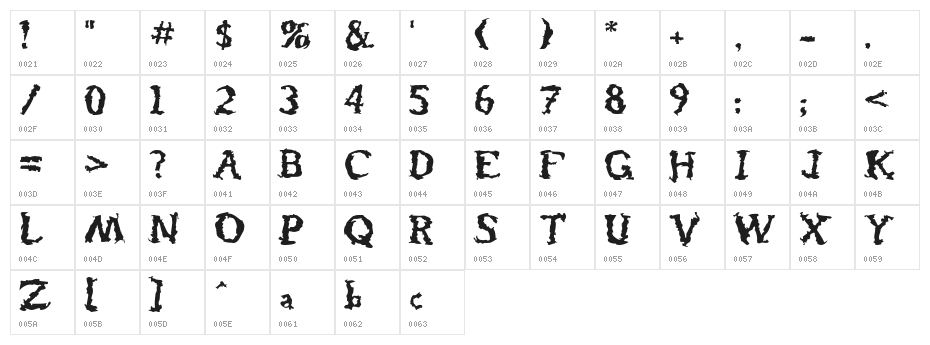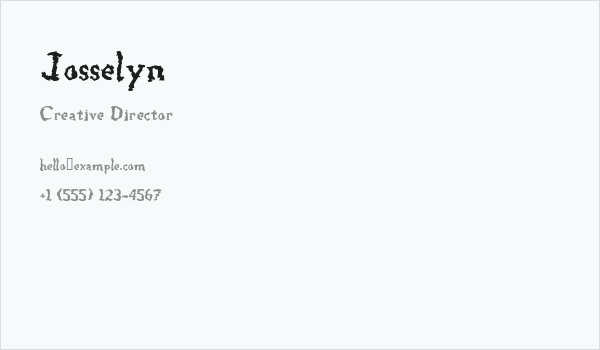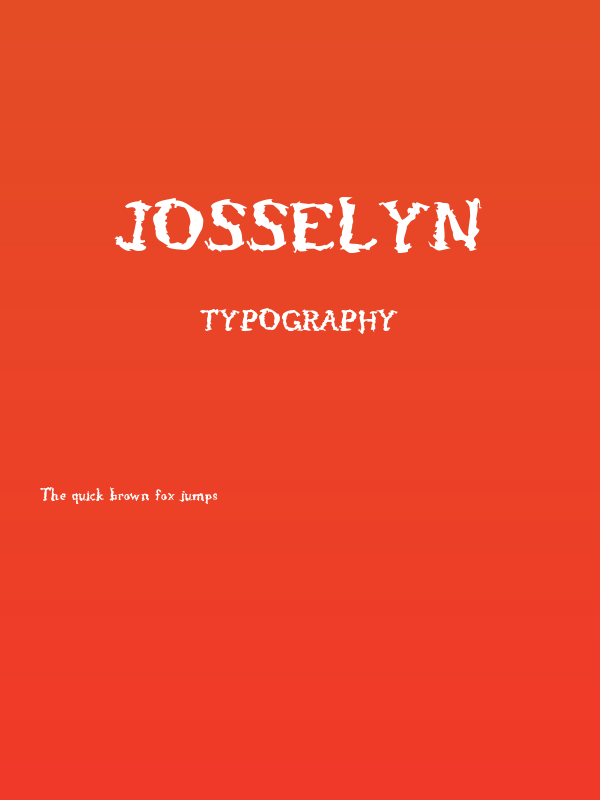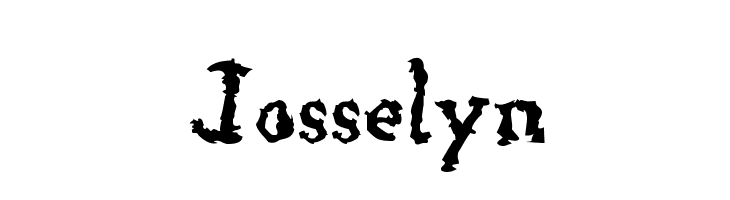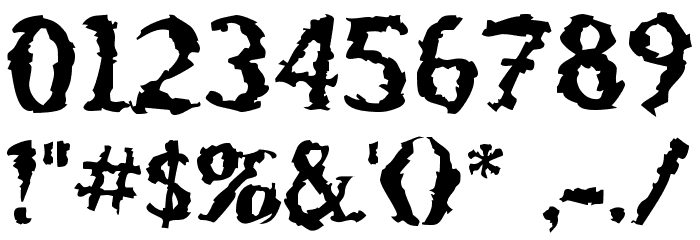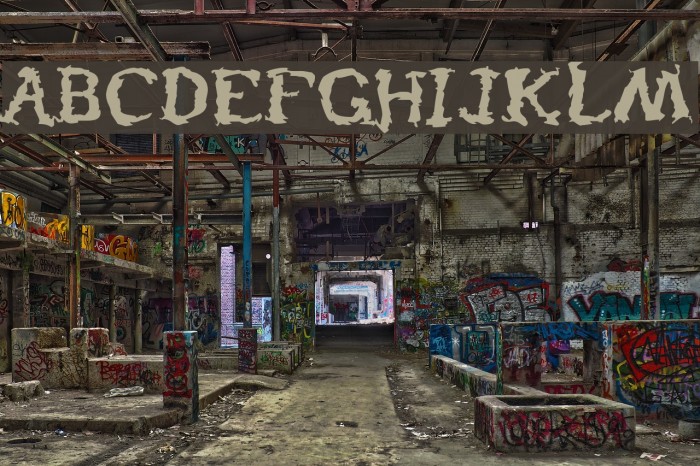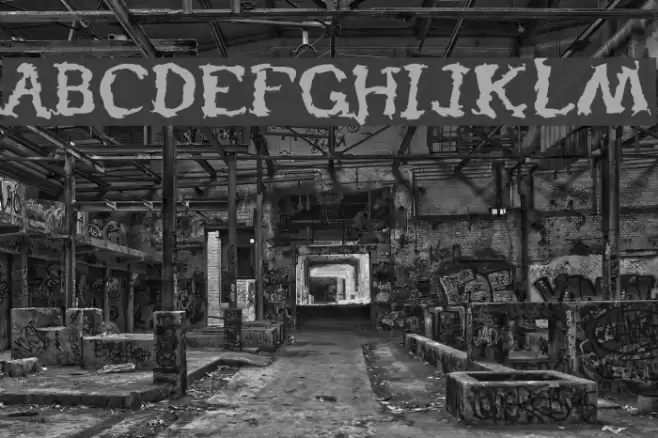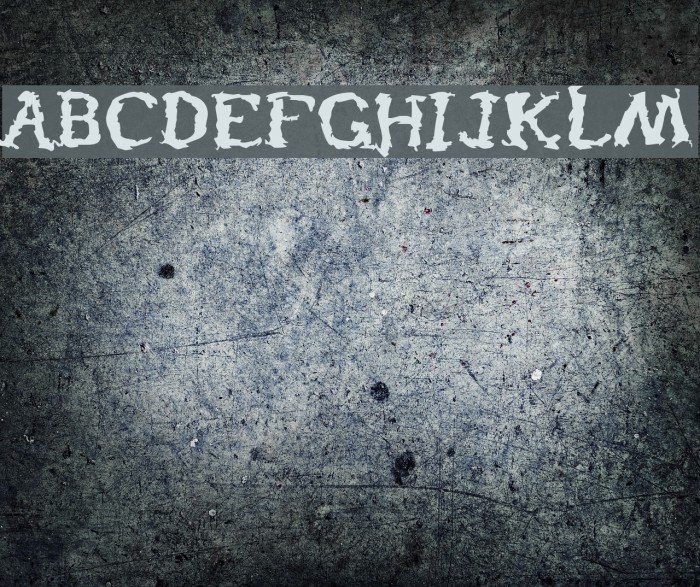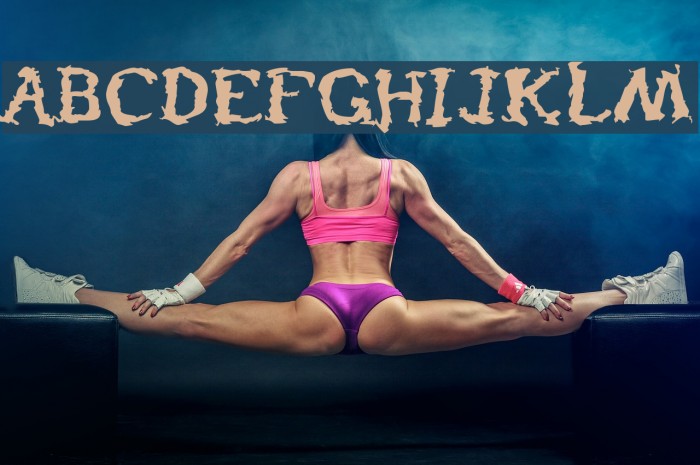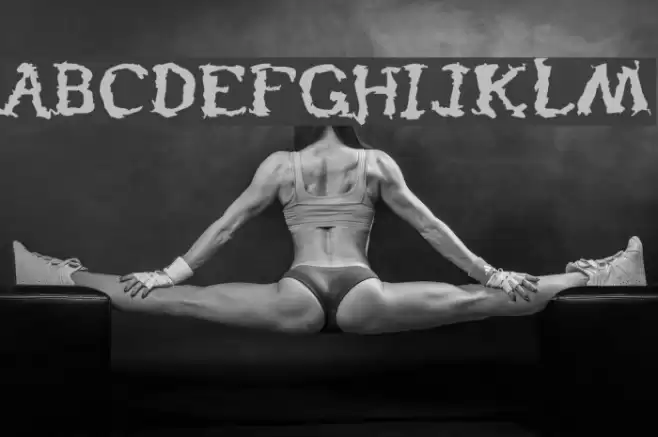
Josselyn Font
Josselyn Description
This font features a highly decorative and distressed style, reminiscent of torn paper or jagged edges. The characters are bold and have an irregular, rugged appearance, giving them a unique and eye-catching look. The uppercase and lowercase letters maintain a consistent design theme, with exaggerated serifs and uneven strokes that create a sense of movement and dynamism. The numerals and special characters follow the same aesthetic, ensuring a cohesive visual identity across all glyphs. This font is ideal for projects that require a bold statement or a touch of grunge and edginess.
| Proposed Projects | Ideal for album covers, posters, Halloween-themed designs, and edgy branding projects. |